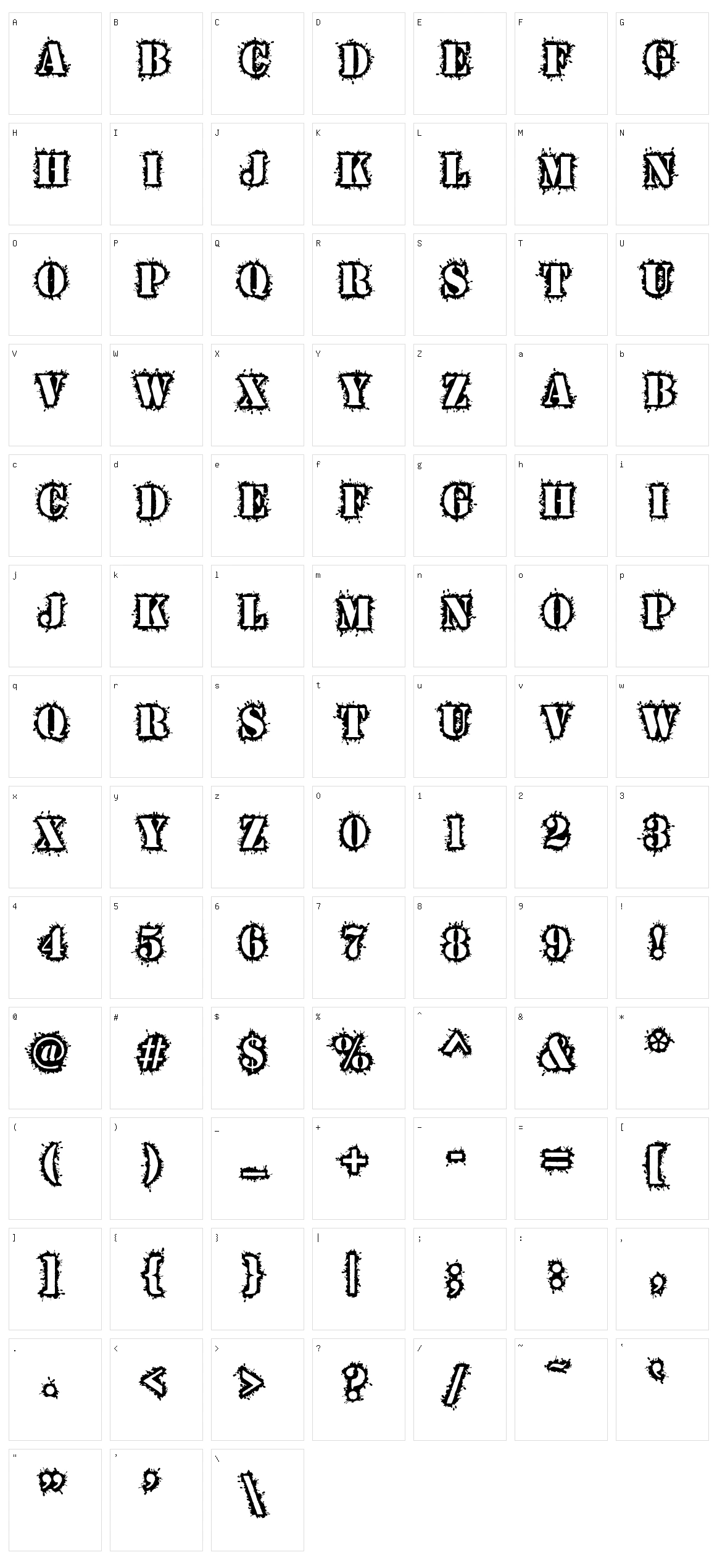
The free font War Wound is carefully designed by Anthony Robinson, showcasing a thoughtful balance of creativity and usability and falls under the Stencil font style. When you download the ZIP file, it contains only 391.63 KB of font files, making it lightweight and quick to download. Please review the license details below to understand permitted usage and distribution rights. If license information is not available, we recommend using this font for personal projects only or contacting the author directly for commercial usage permissions.